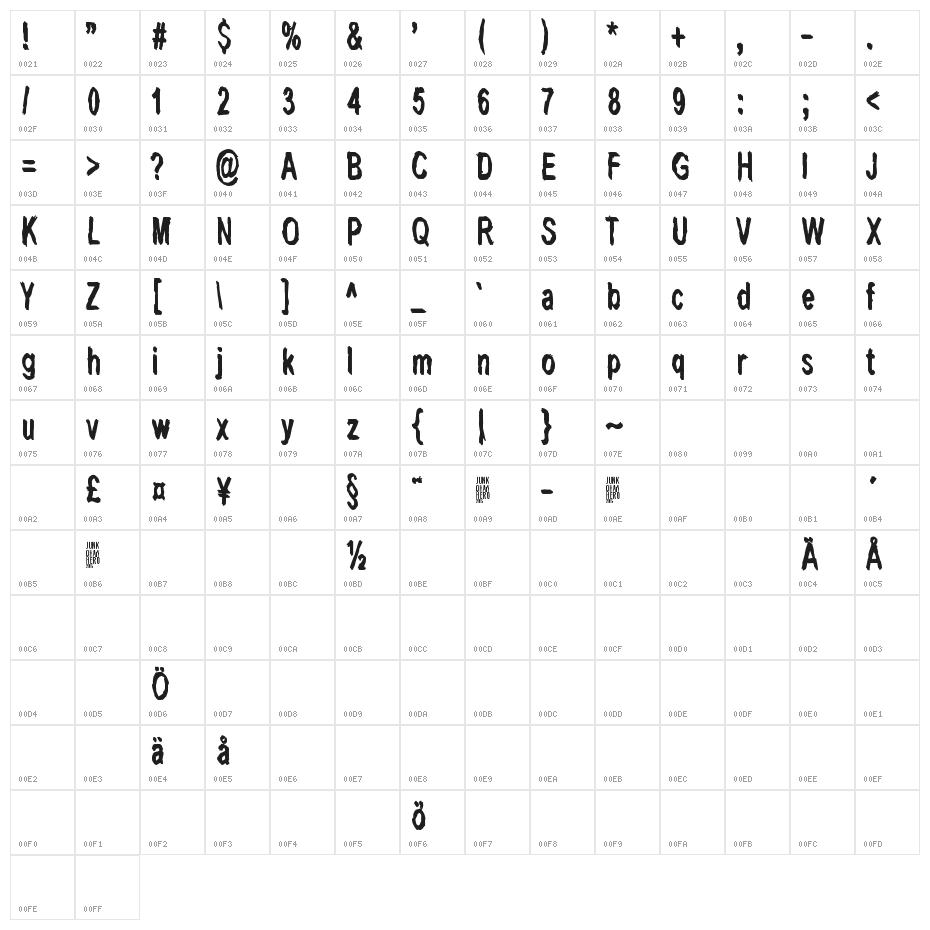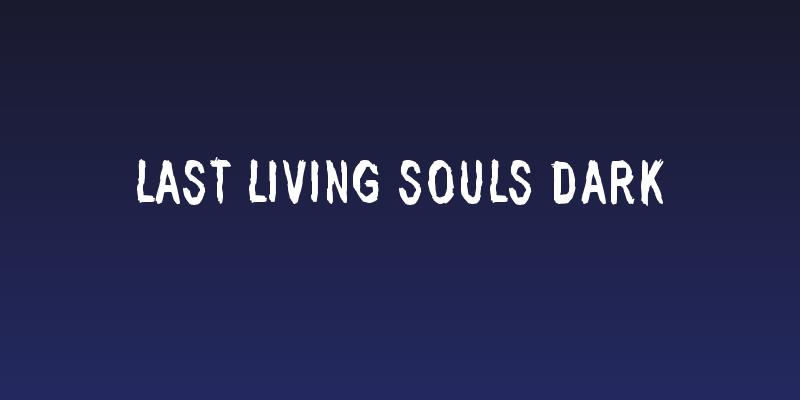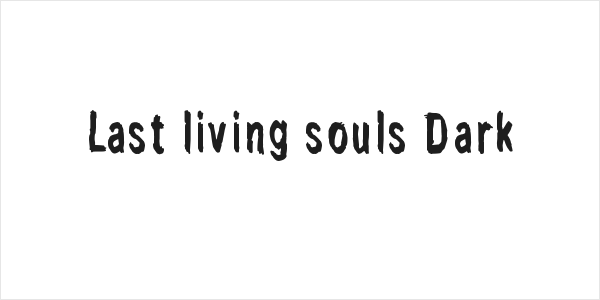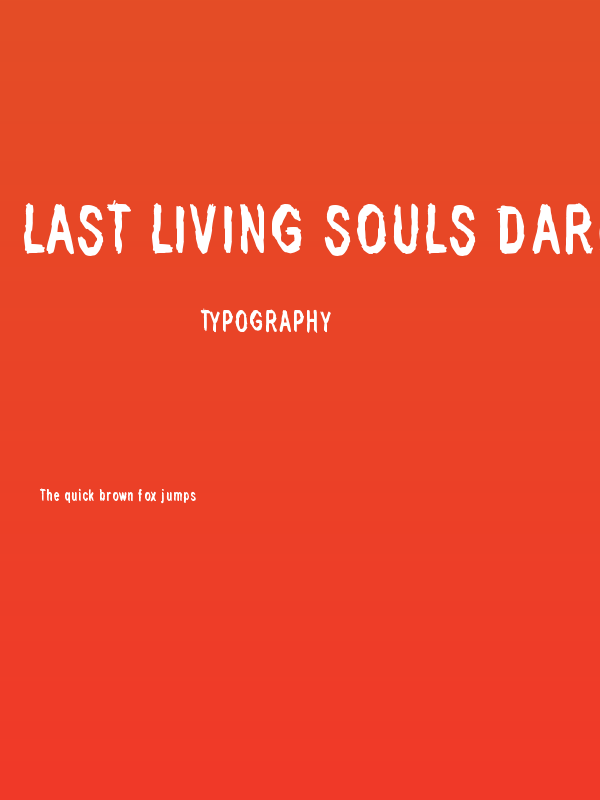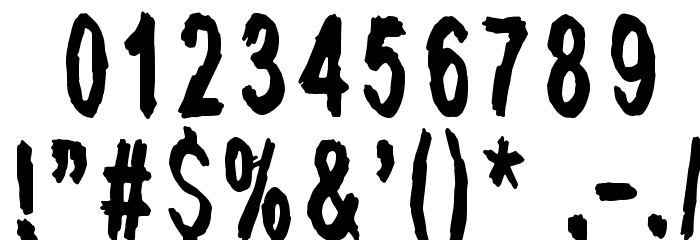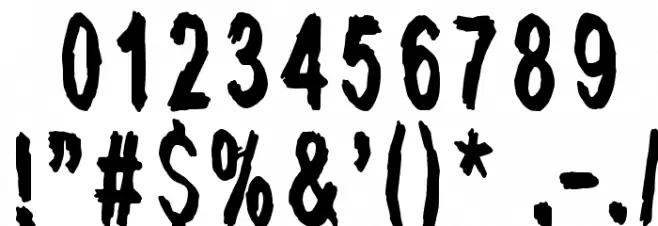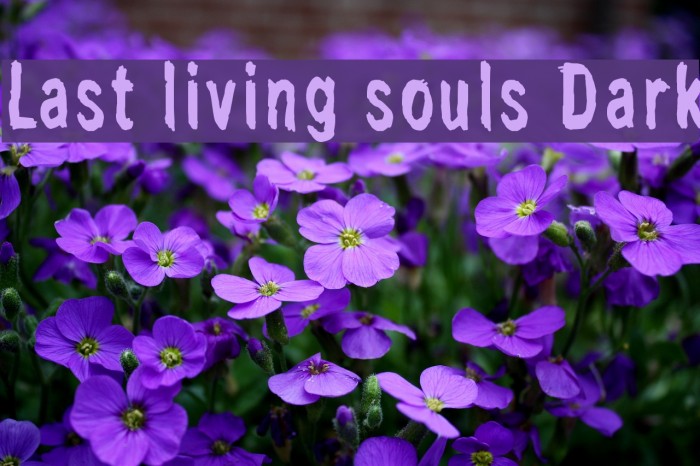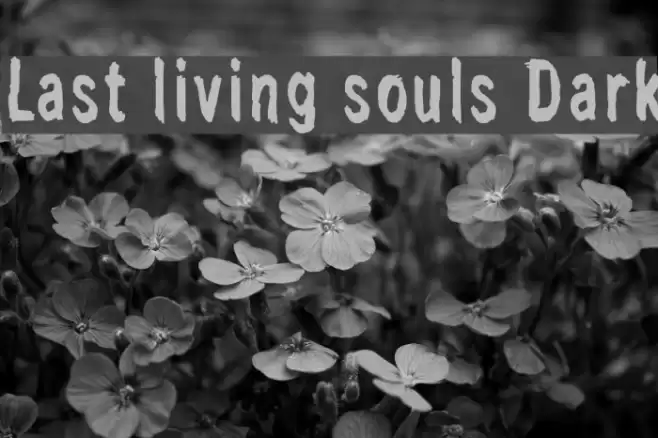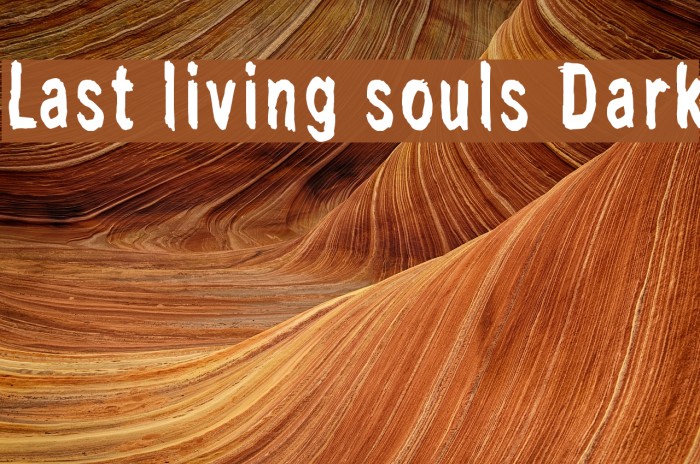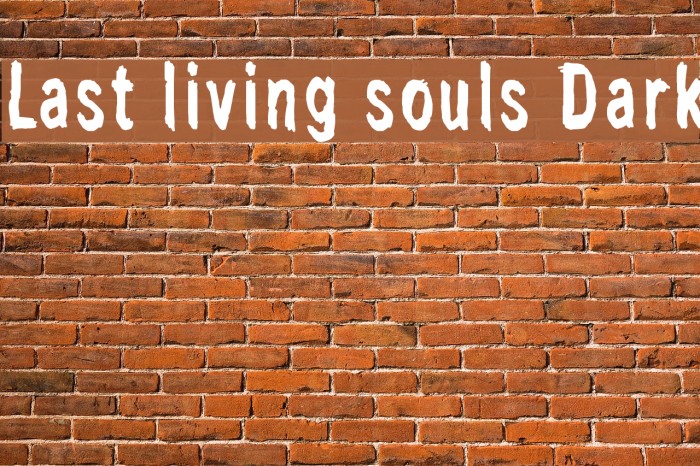
Last living souls Dark Font
Last living souls Dark Description
This font features a bold, distressed style with a hand-drawn appearance. The characters are uneven and rugged, giving a raw and edgy feel. The uppercase and lowercase letters maintain a consistent style, with jagged edges and irregular strokes that suggest a sense of urgency and movement. The numbers and special characters follow the same aesthetic, ensuring a cohesive look across all glyphs. This font's unique texture and bold presence make it stand out, ideal for projects that require a strong visual impact.
| Overall Style | Edgy, Raw, Distressed |
| Use Case | Headlines, Posters, Branding |
| Proposed Projects | Ideal for music album covers, posters, graffiti art, and branding for edgy or alternative products. |